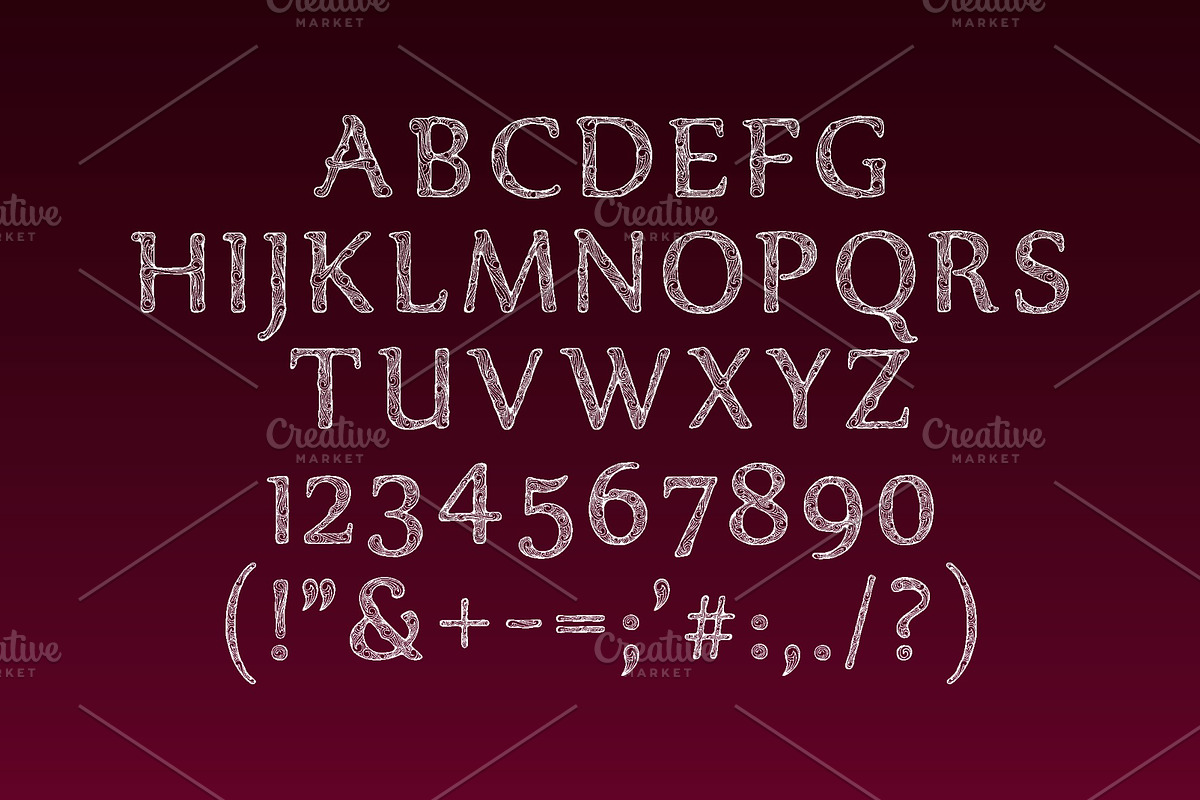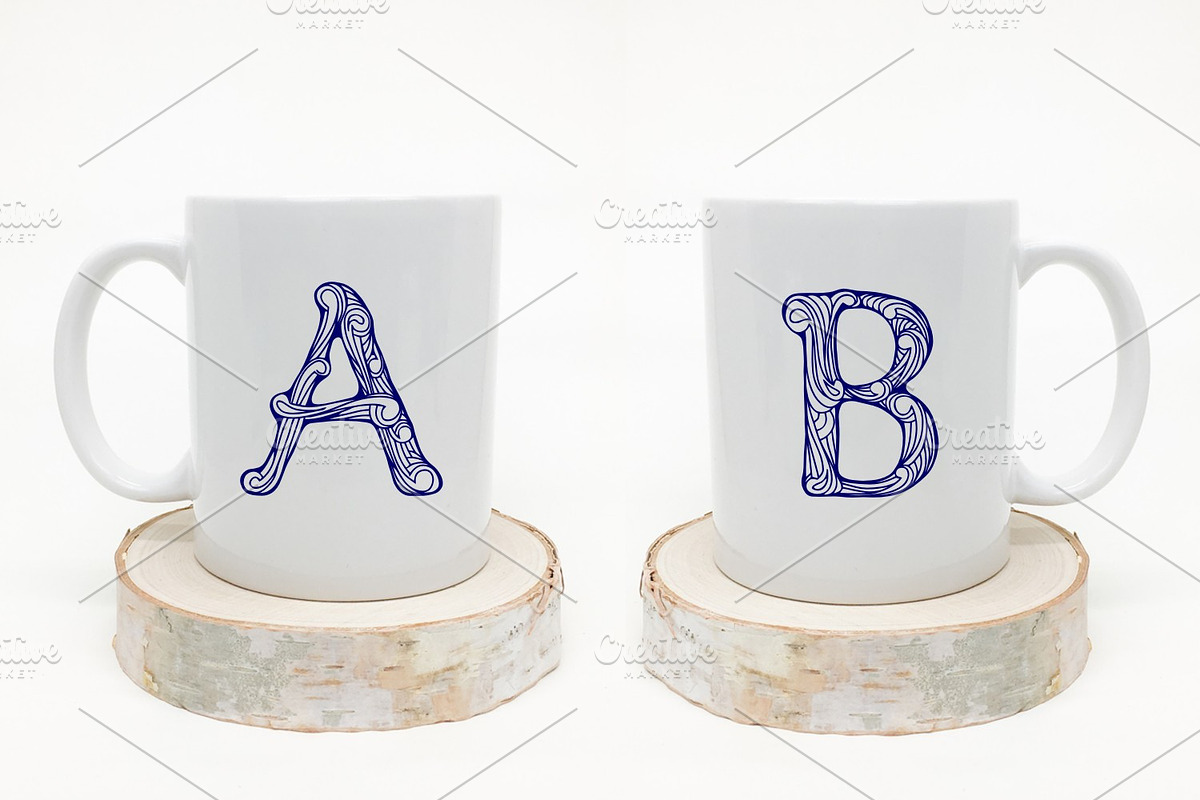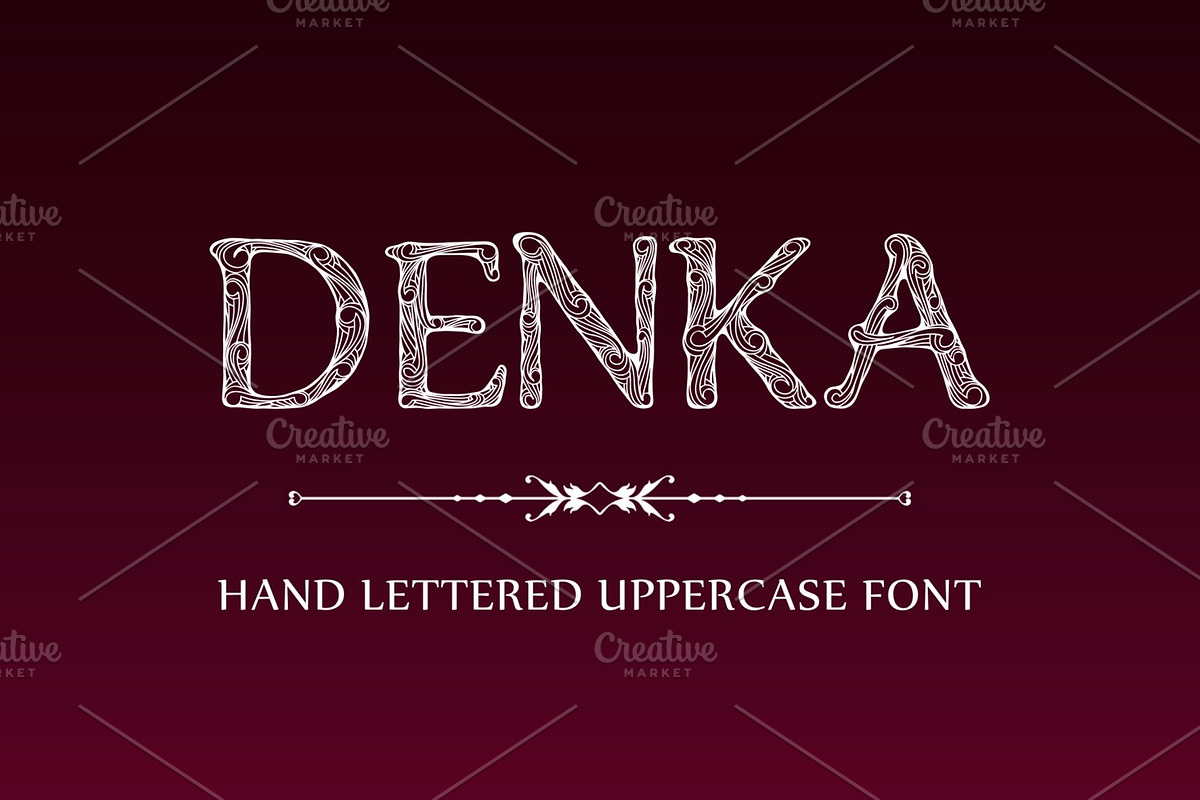
Denka
Denka is a hand drawn decorative font, suitable for designs that need to get noticed. This is the perfect font for adding a touch of class and ornate appeal to your projects.
Why Denka is worth a look
Denka by Digital Typeface Studio fits naturally into Branding, posters, packaging, typography.